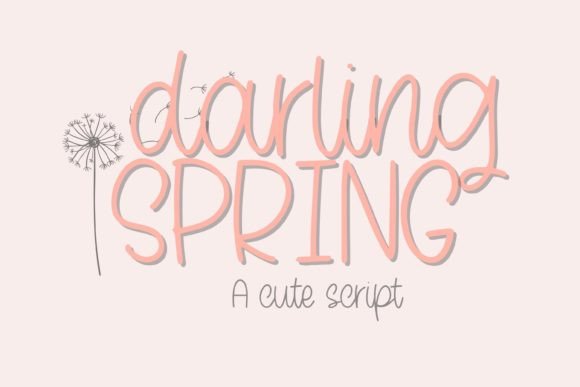
Introducing Darling Spring Font, the ultimate choice for those seeking an elegant and sophisticated touch to their designs. Crafted with utmost care by designingdigitals, this stunning handwritten font is set to elevate your creations to new heights.
Are you planning a wedding and in search of the perfect font to complement your invitations? Look no further! Darling Spring Font exudes a sense of grace and beauty, making it the ideal choice for adding a touch of sophistication to your special day. Its delicate strokes and flowing curves will captivate hearts and leave a lasting impression on your guests.
Branding is everything in today's competitive market, and Darling Spring Font understands the power of making a statement. With its timeless charm and exquisite design, this font will effortlessly elevate your brand to new levels of professionalism. Whether it's your logo, packaging, or promotional materials, Darling Spring Font ensures that your message is delivered with elegance and style.
In the digital world, having a visually appealing and user-friendly website is crucial. Darling Spring Font provides the perfect solution for web designers looking to create a captivating online presence. Its smooth flow and intricate details will make your website stand out from the crowd, leaving visitors with an unforgettable browsing experience.
But what sets Darling Spring Font apart from the rest? Its PUA encoding! With this feature, accessing all the unique glyphs and swashes is a breeze. Unleash your creativity and explore the endless possibilities this font has to offer. Let your imagination run wild as you effortlessly incorporate stunning embellishments into your designs.
Imagine the joy of effortlessly creating beautiful calligraphy, elegant wedding invitations, or eye-catching logos with Darling Spring Font. It's not just a font; it's an invitation to explore your creativity and leave a lasting impression on those who encounter your designs.
Join the ranks of satisfied designers who have embraced Darling Spring Font as their go-to choice for adding a touch of sophistication and elegance. Unlock the potential of this captivating font and watch as your designs come to life with a timeless charm that will leave everyone in awe.